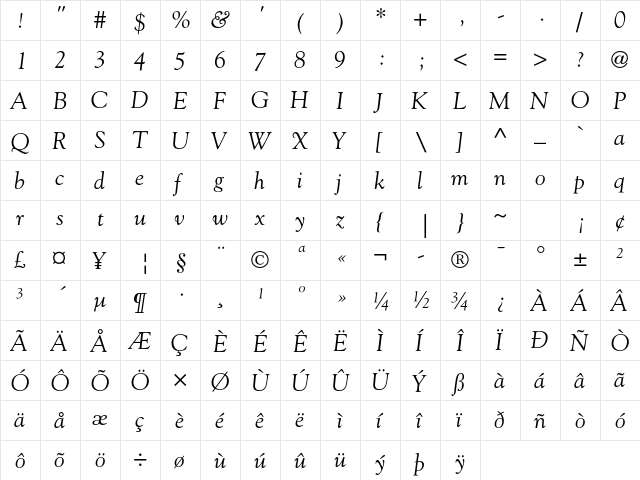
Goudy Oldstyle Std Italic Font Preview
Goudy Oldstyle Std Italic
| Designer | Frederic W. Goudy, Morris Fuller Benton |
Design Context for Goudy Oldstyle Std Typeface
Goudy Oldstyle Std brings classic typographic sensibility to the table — its serifs and measured letterforms reflect centuries of print heritage. The dynamic lean of this cut emphasises speed and emphasis in any layout.
Pro Tip: Set Goudy Oldstyle Std with slightly loose tracking in headlines to let each letterform's detail read clearly at display sizes.